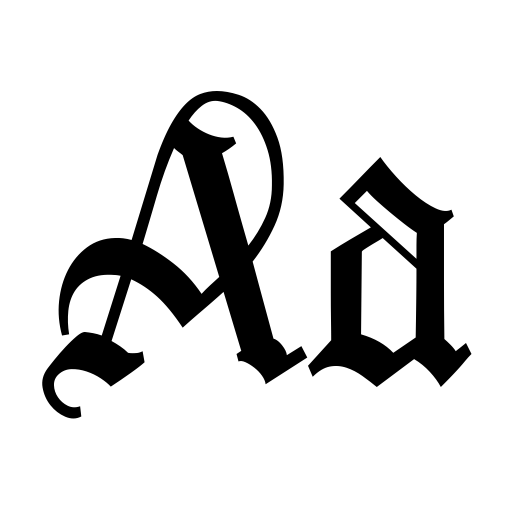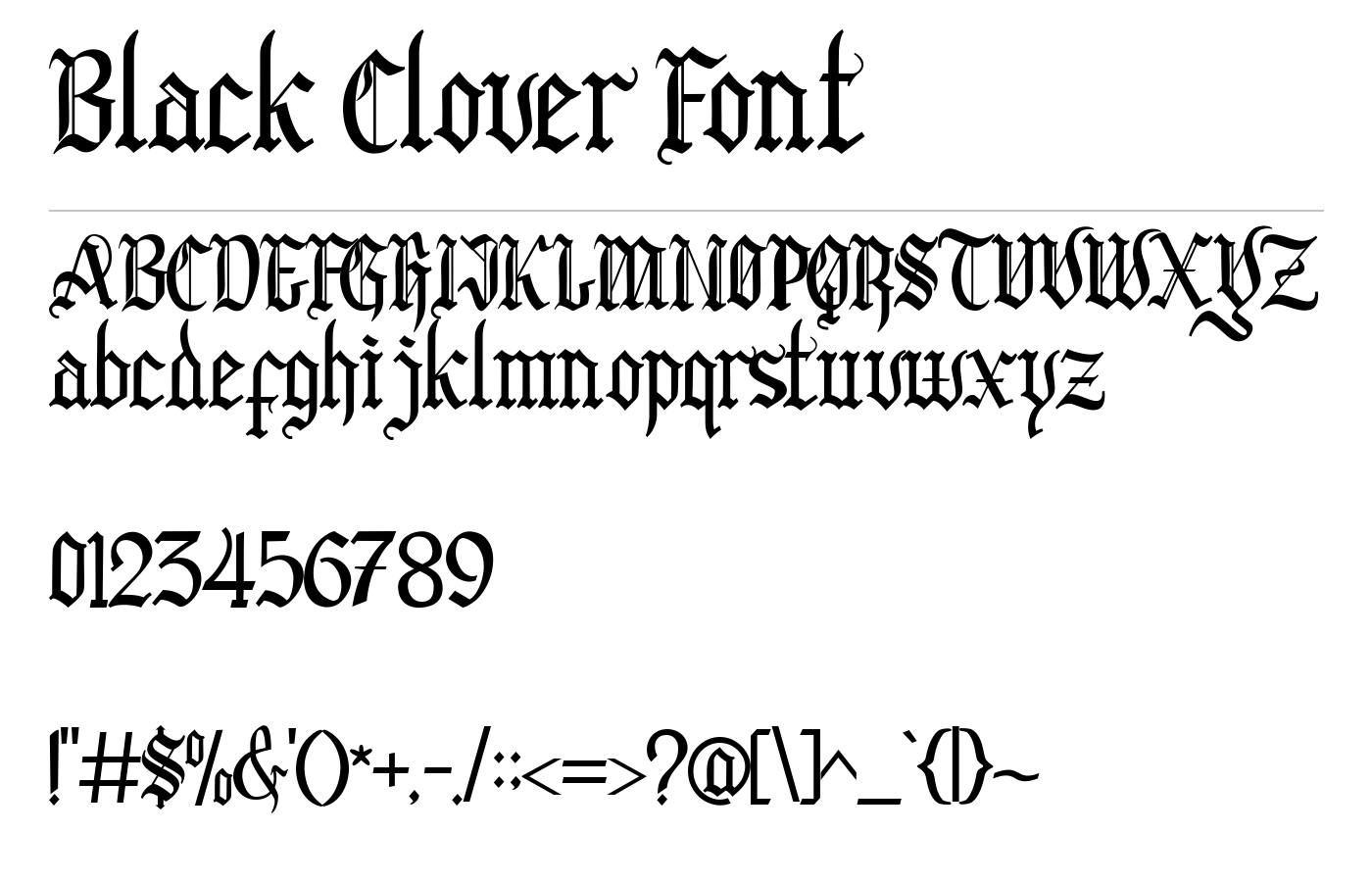
Black Clover is a bold blackletter serif font that exudes a medieval, gothic charm with its sharp, angular strokes and strong contrast between thick and thin lines. Its ornate details and condensed structure make it ideal for creating a dramatic, vintage atmosphere, perfect for headlines, logos, or branding that seeks to evoke tradition, mystery, or historical elegance. This font works well in editorial designs, posters, and fashion contexts where a distinct, classic character is desired.
Black Clover Font
About Black Clover Font
| Font family | Black Clover Font |
| Designer | Fuady & Aldy |